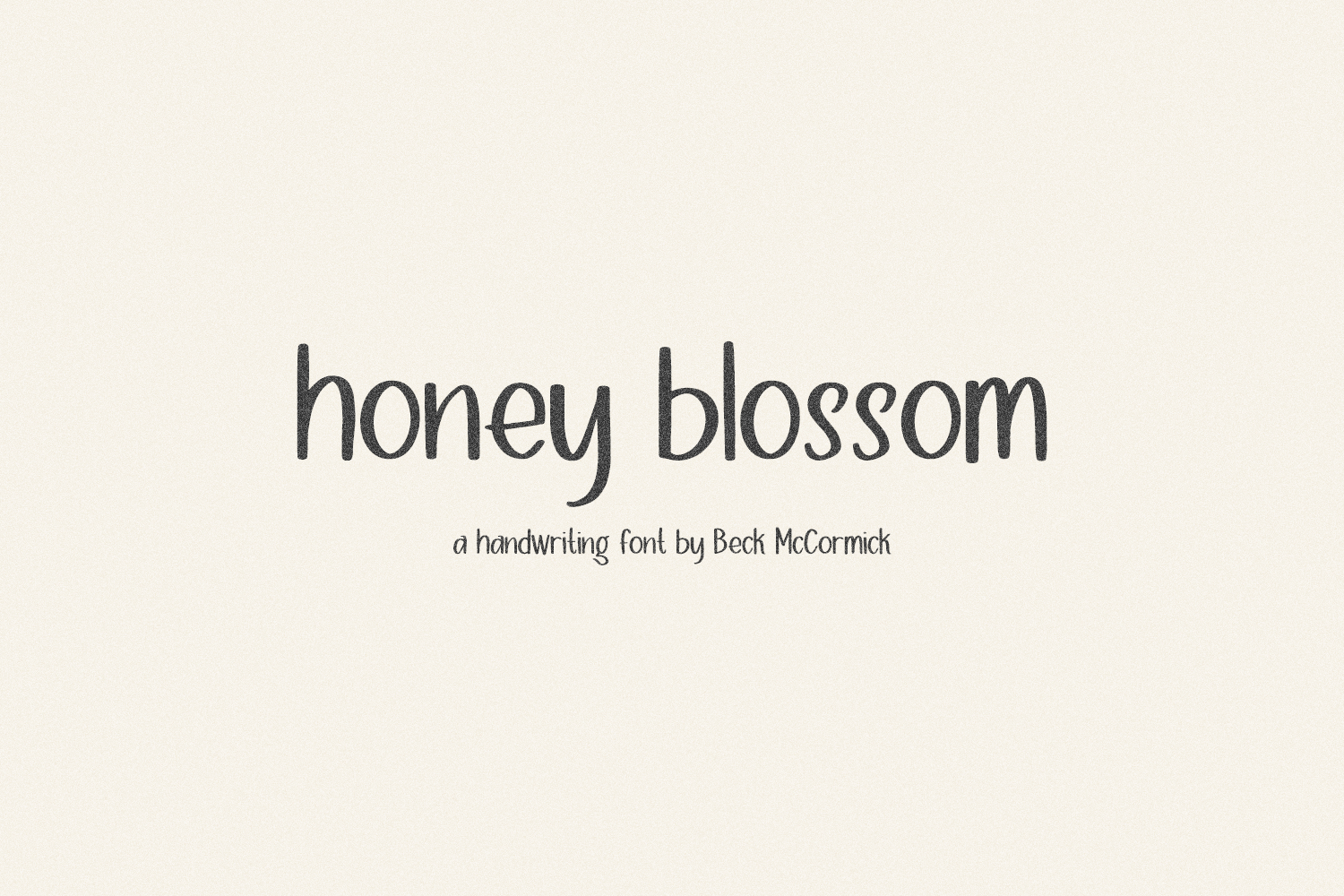
Honey Blossom Sans
Honey Blossom Sans is a sweet hand lettered font. It’s neat & tidy appearance makes it the perfect fit for your digital planner or note-taking app. It’ll also be a perfect fit for your cute home decor projects, your Cricut machine, logo & branding projects, marketing materials, social media graphics, & more.